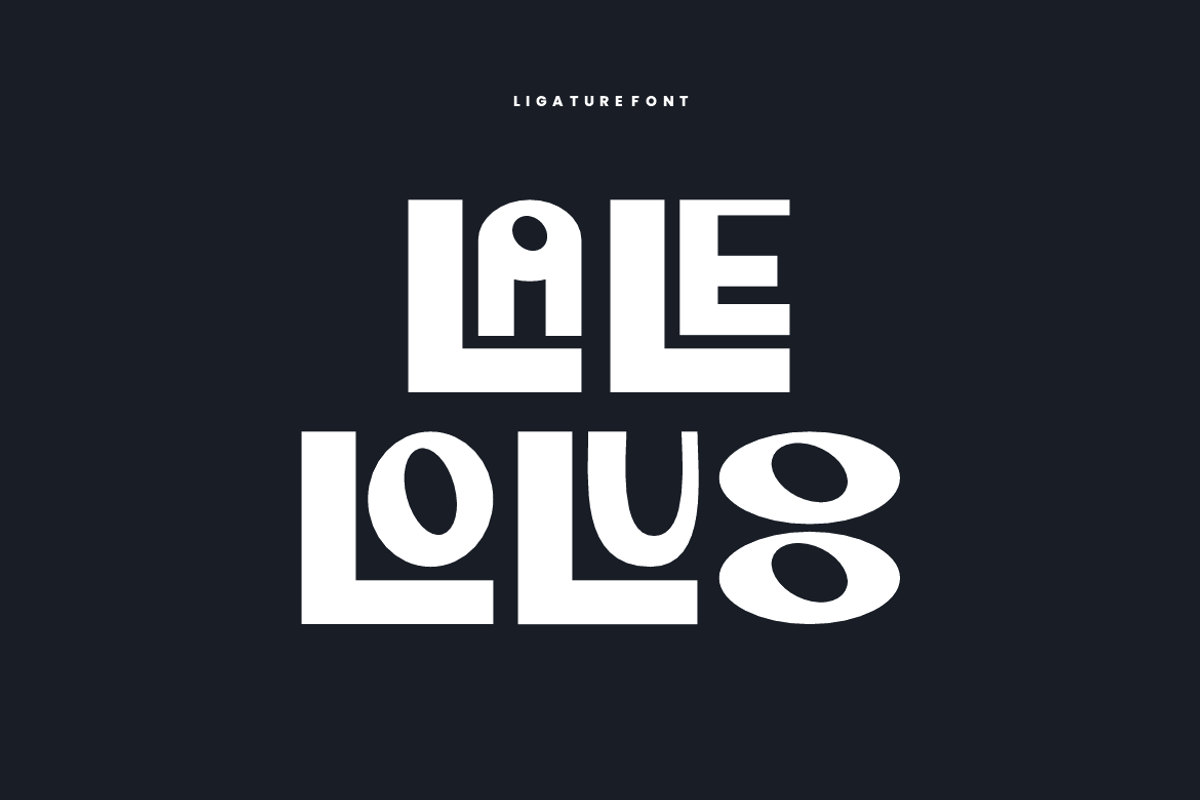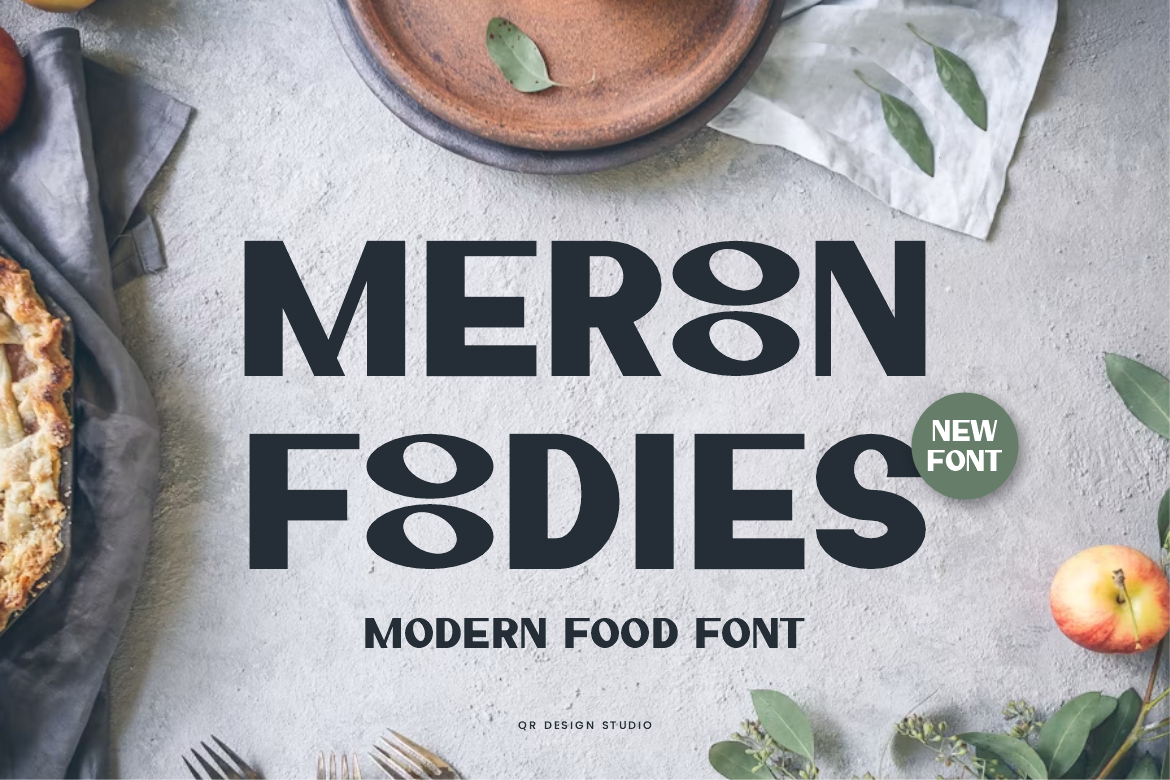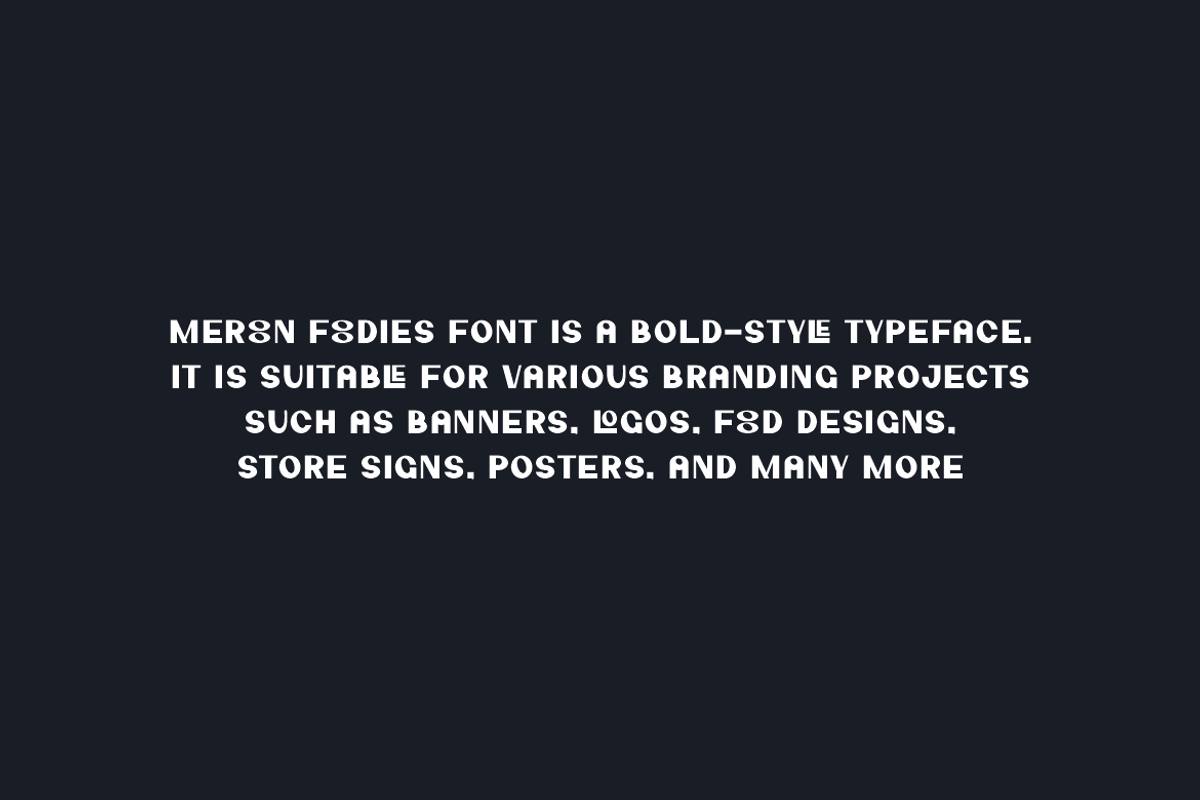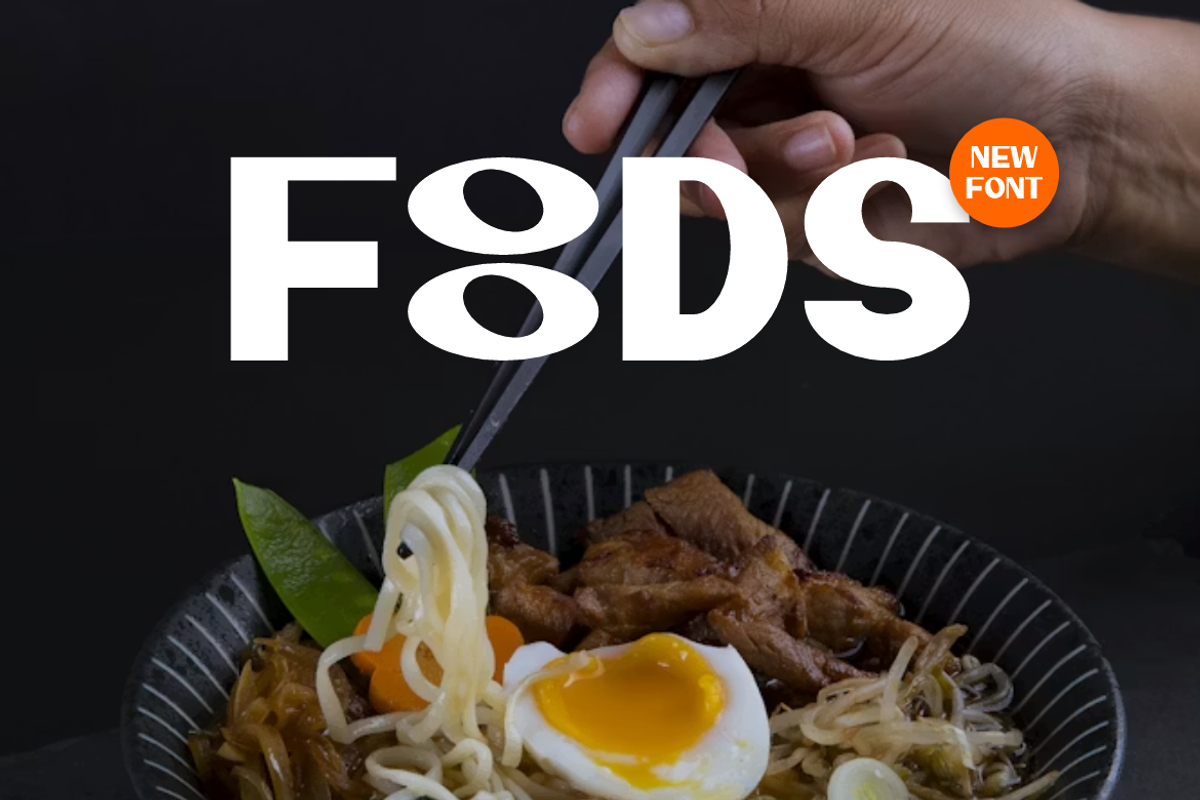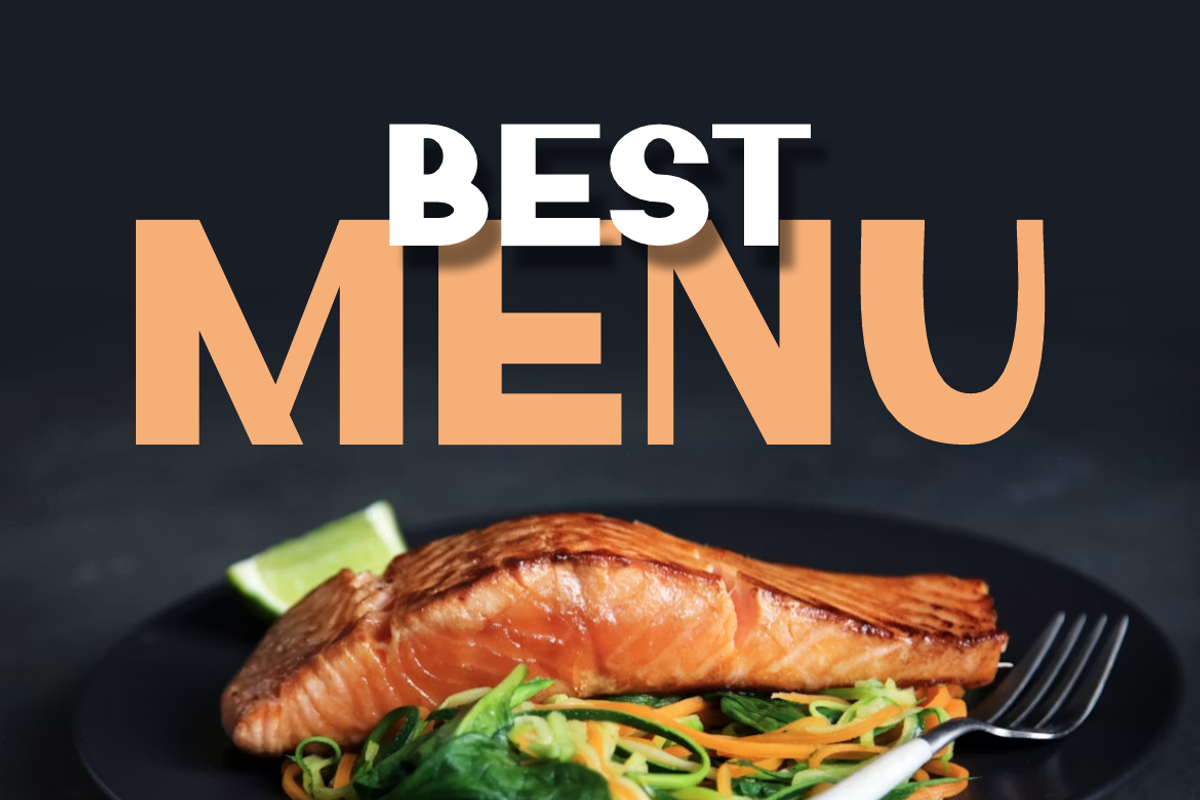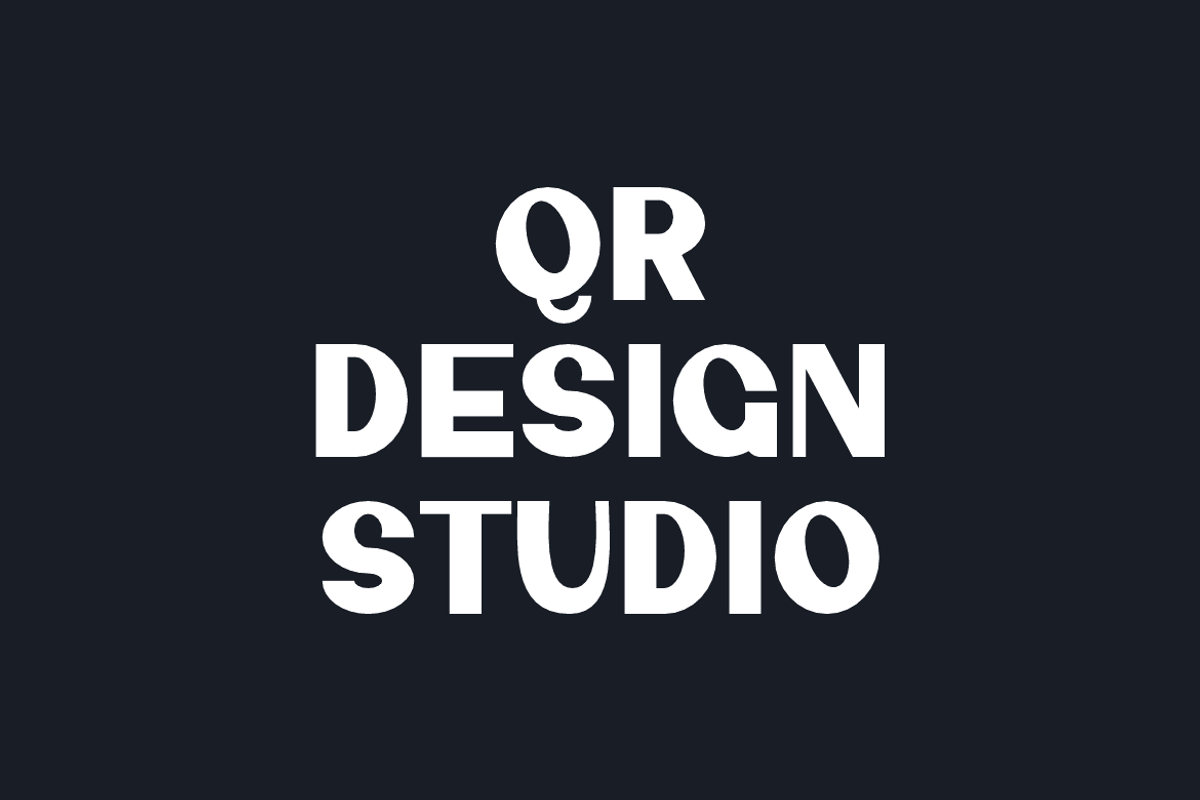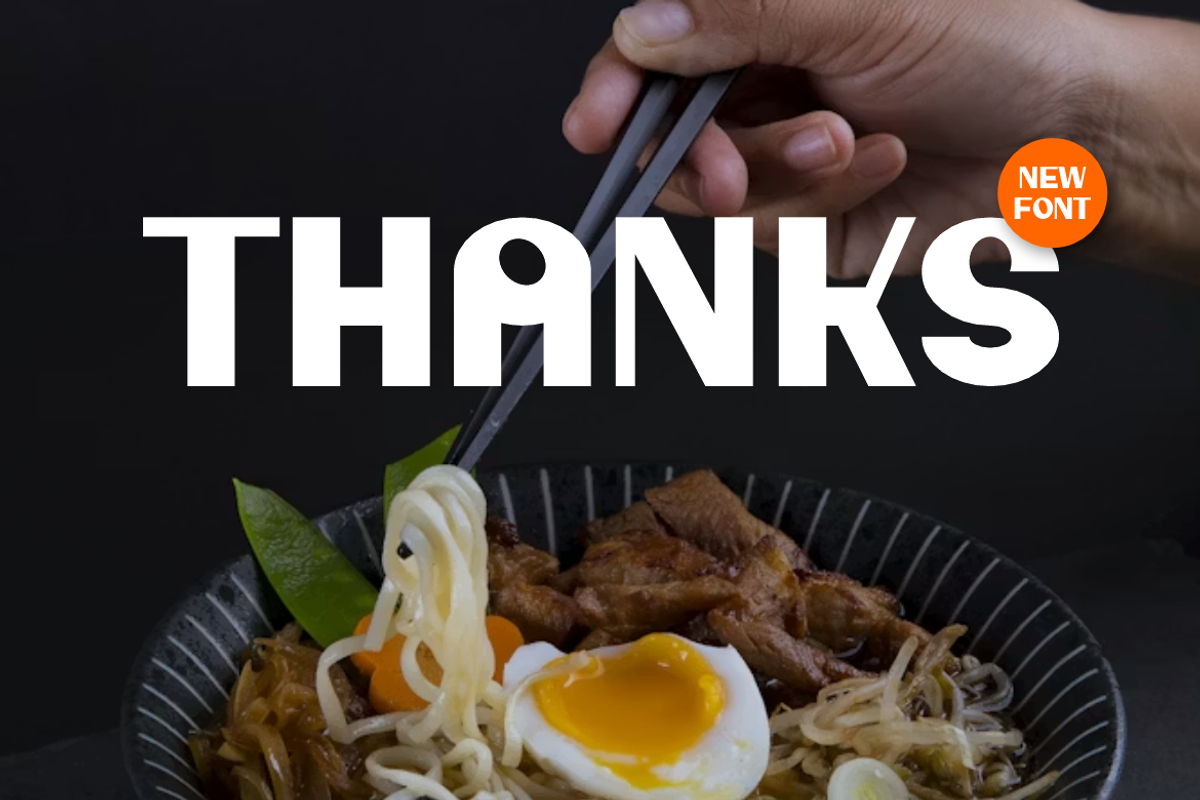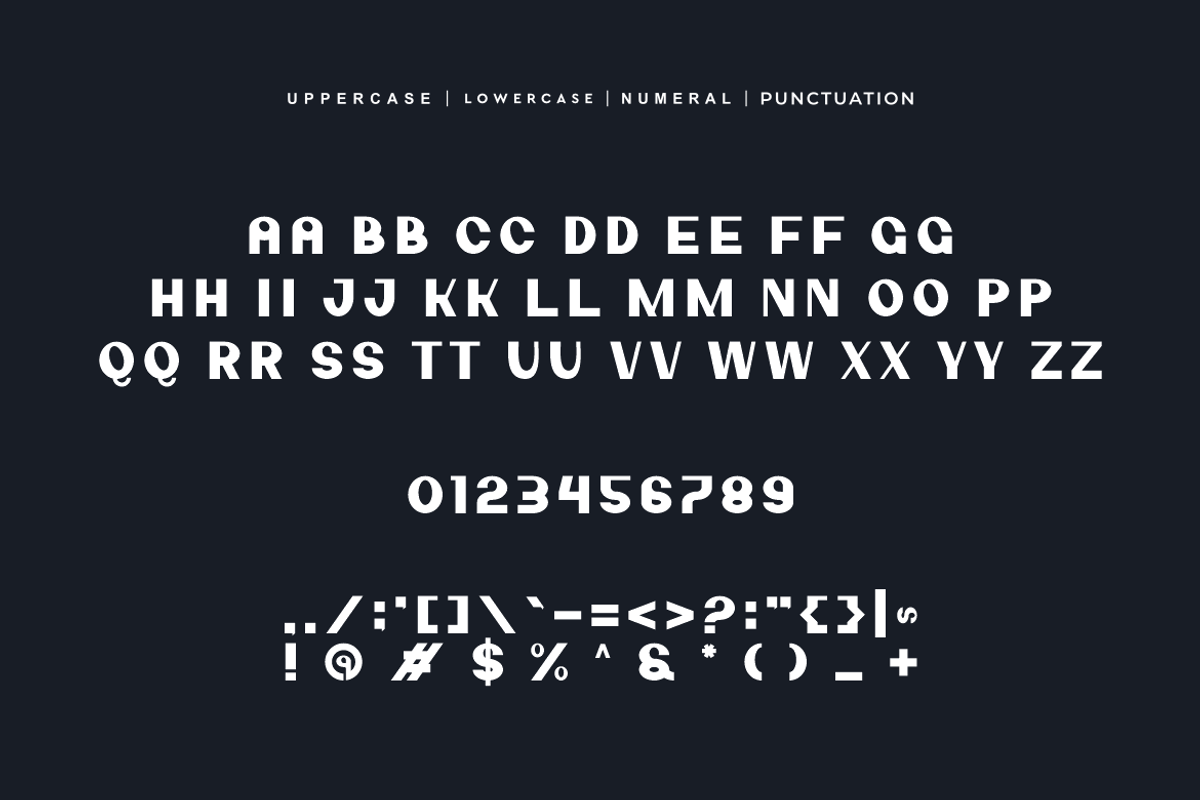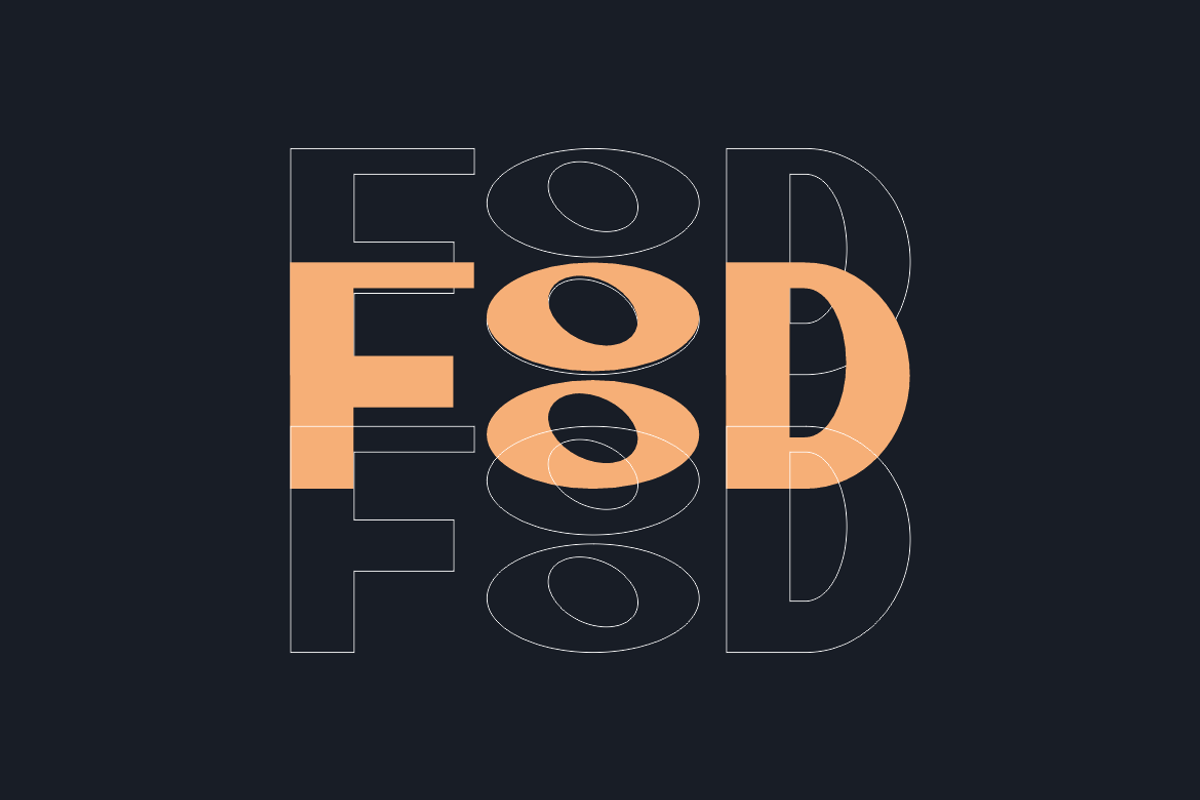
Meroon Foodies - Food Font
Meroon Foodies Font is a modern and authentic display typeface.
It’s perfect for various branding projects such as logos, food designs,
and more. This font stands out beautifully in a wide range of contexts.